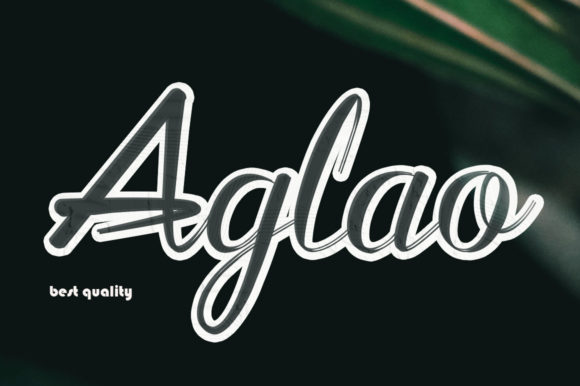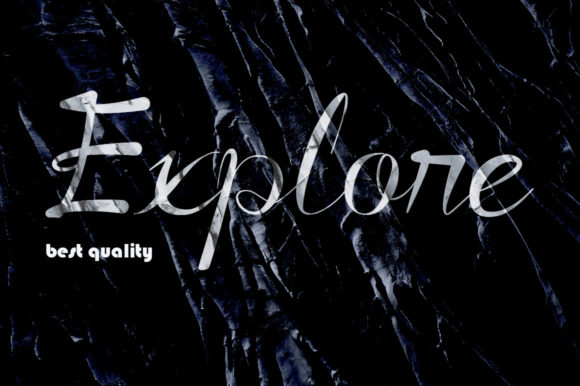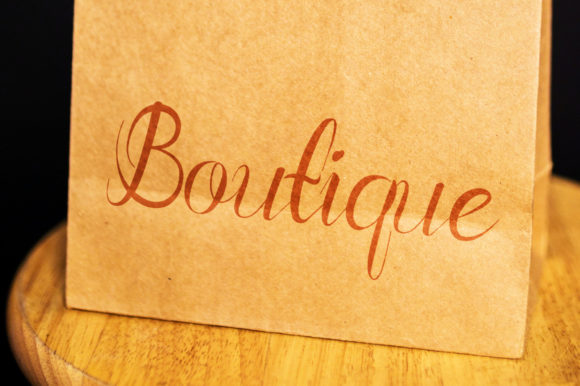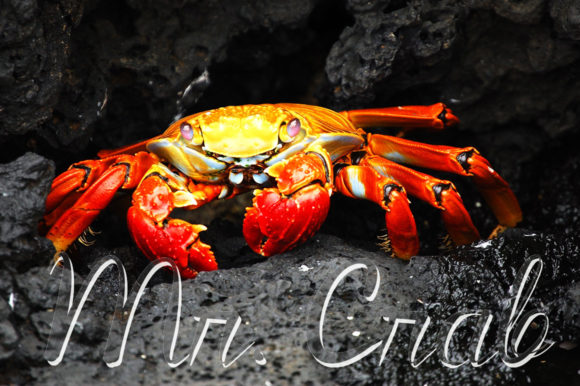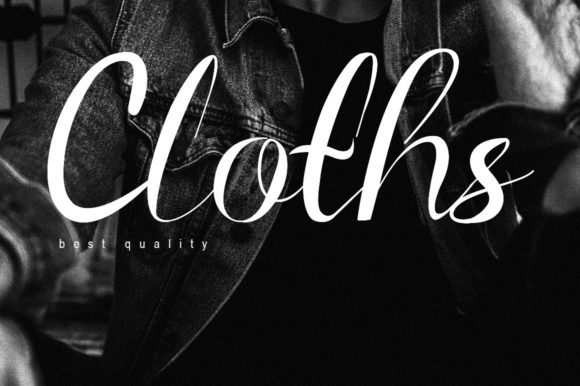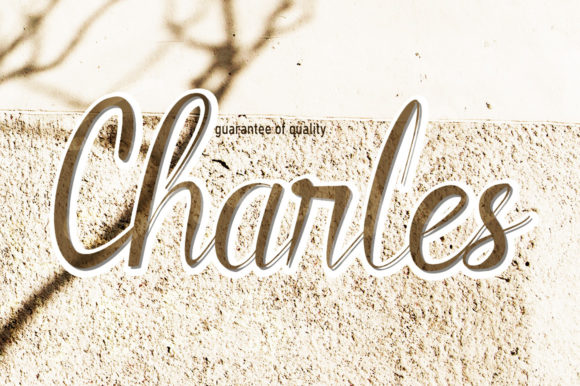
Aglaonema Font
About Aglaonema Font
Aglaonema font is a font made for packaging products, invitation cards, font for label product, script font for promotion and all aspects that require high-quality fonts, the graphics in this font such as character to kerning are very suitable and can be used in all aspects. This font is PUA encoded which means you can access all of the glyphs and swashes with ease!